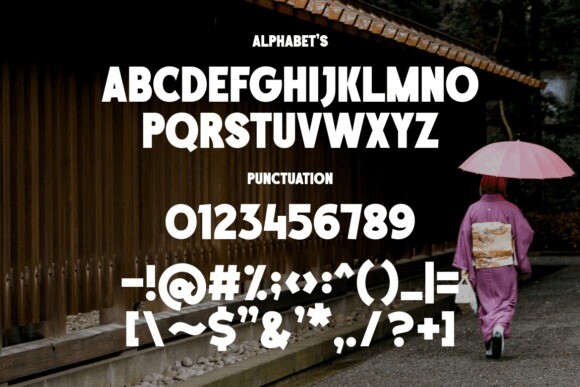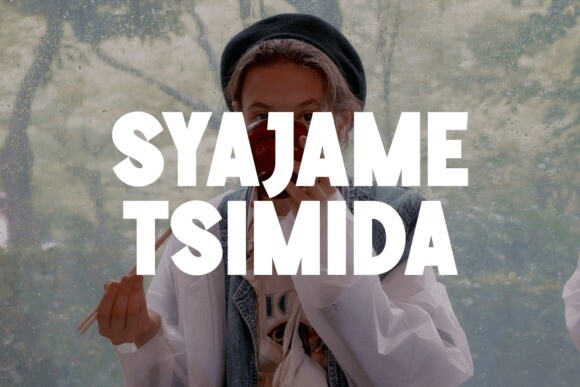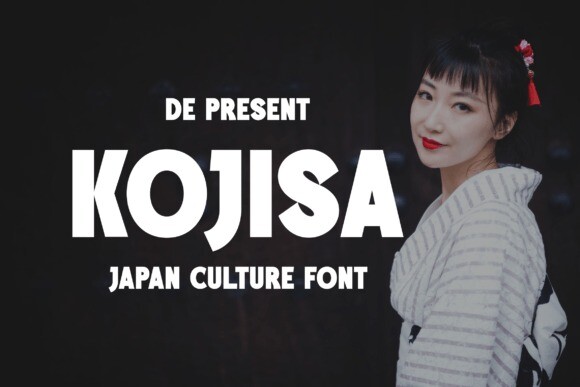
Kojisa Font
Kojisa Font is a bold font with some of the glyphs made to resemble Japanese culture. It is suitable for logotypes, headlines, corporate identity, brand identity, apparel industry, posters, music, movies, games, magazines or any of your creative design projects.